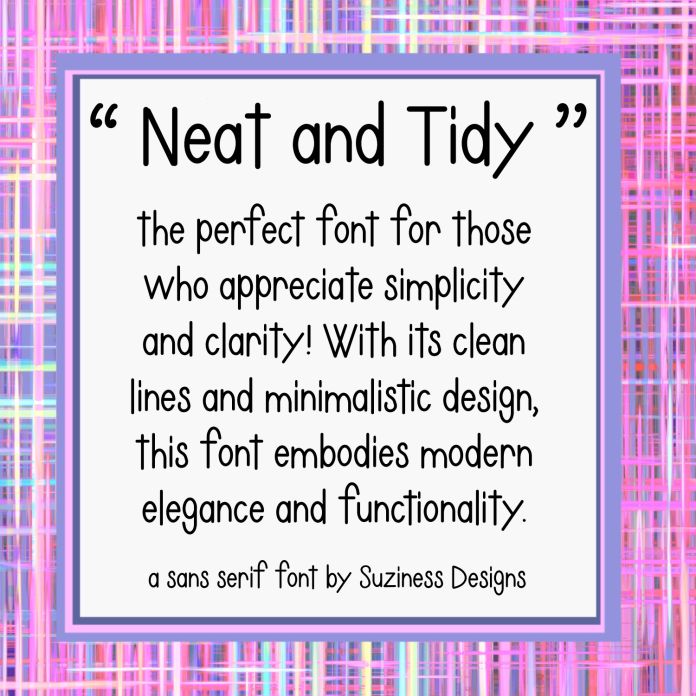
Introducing "Neat and Tidy" – the perfect font for those who appreciate simplicity and clarity! With its clean lines and minimalistic design, this font embodies modern elegance and functionality. Ideal for professional documents, branding, and presentations, "Neat and Tidy" ensures your message is conveyed with precision and style. Elevate your content with this effortlessly sophisticated font!